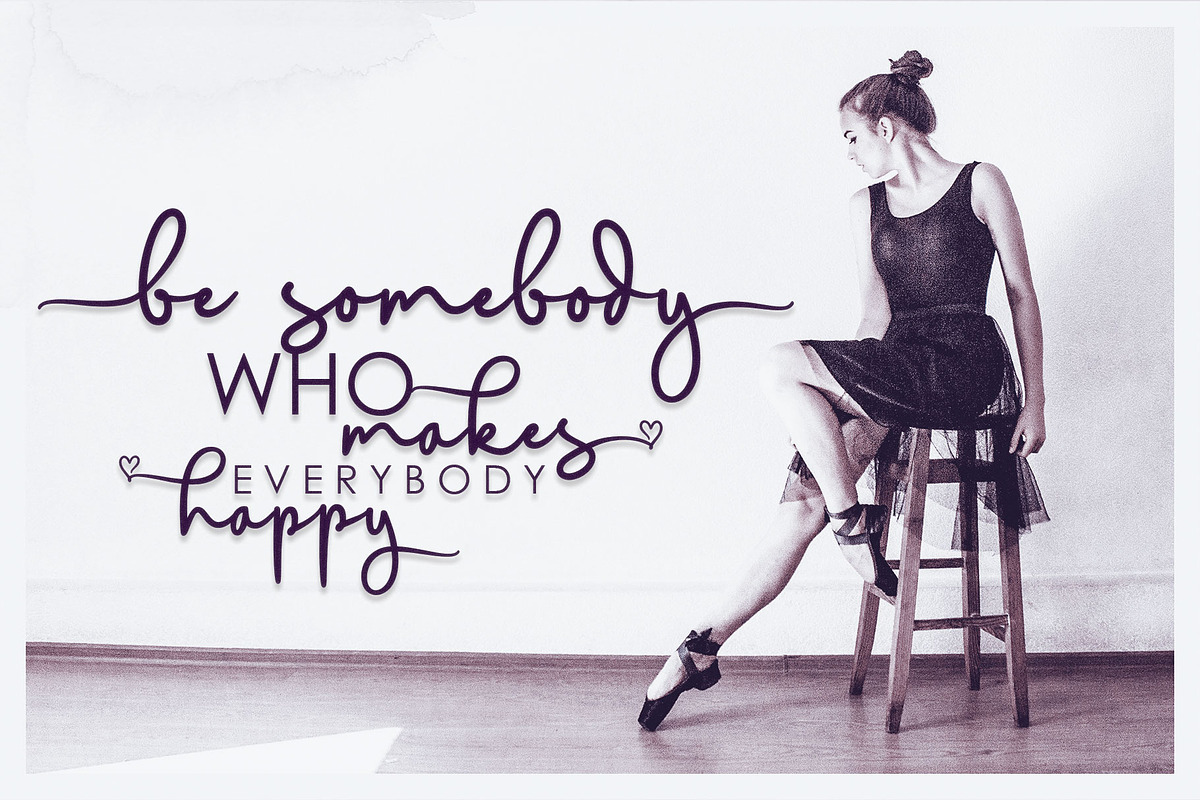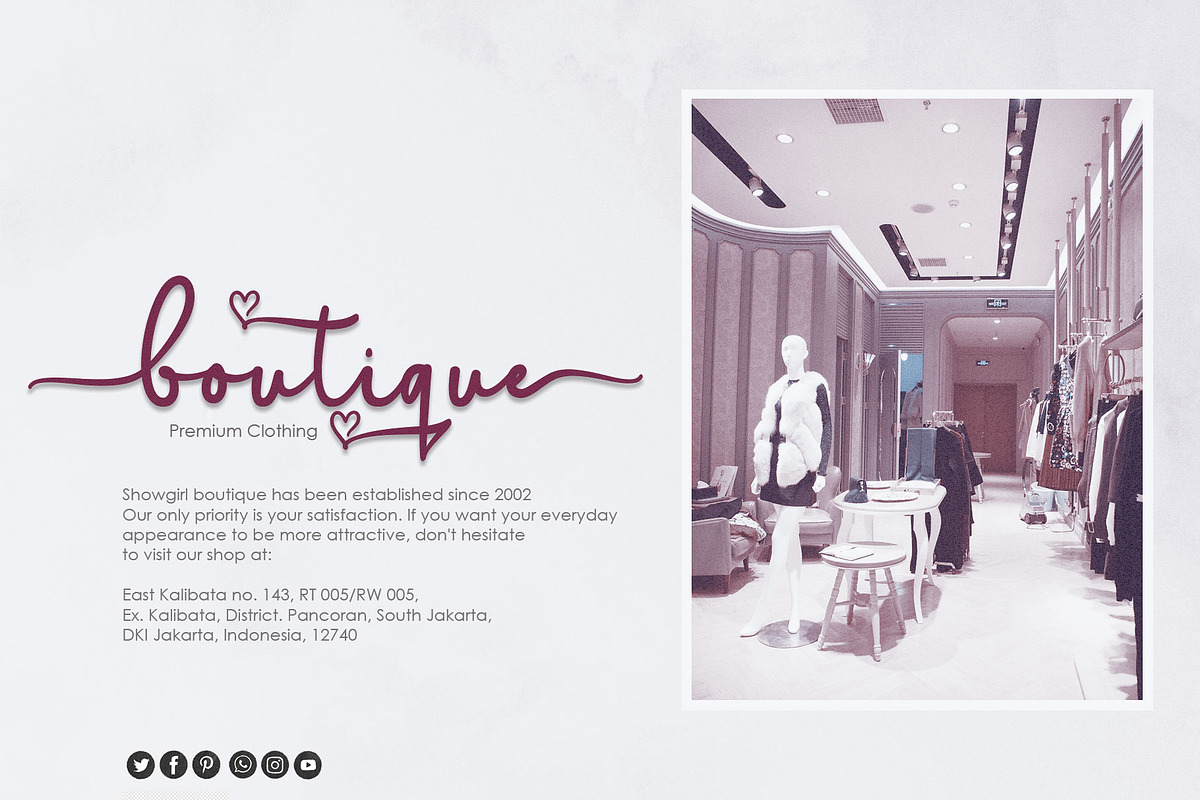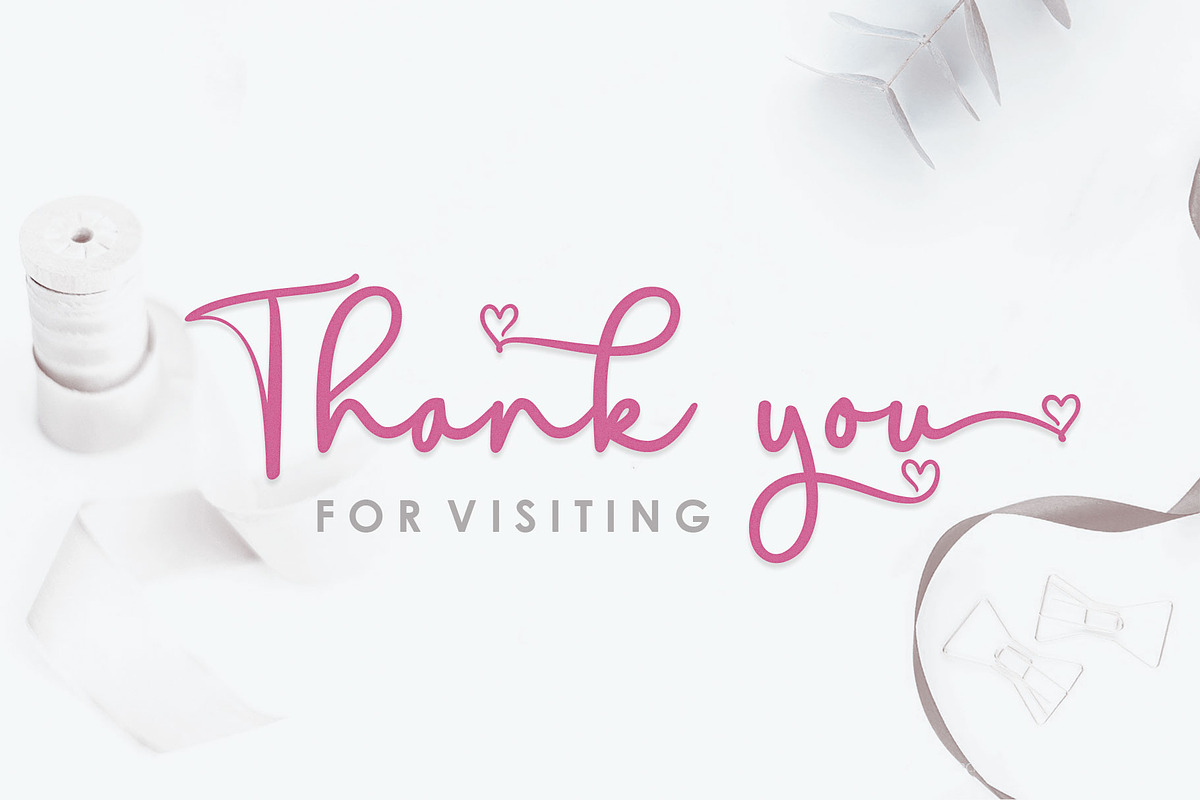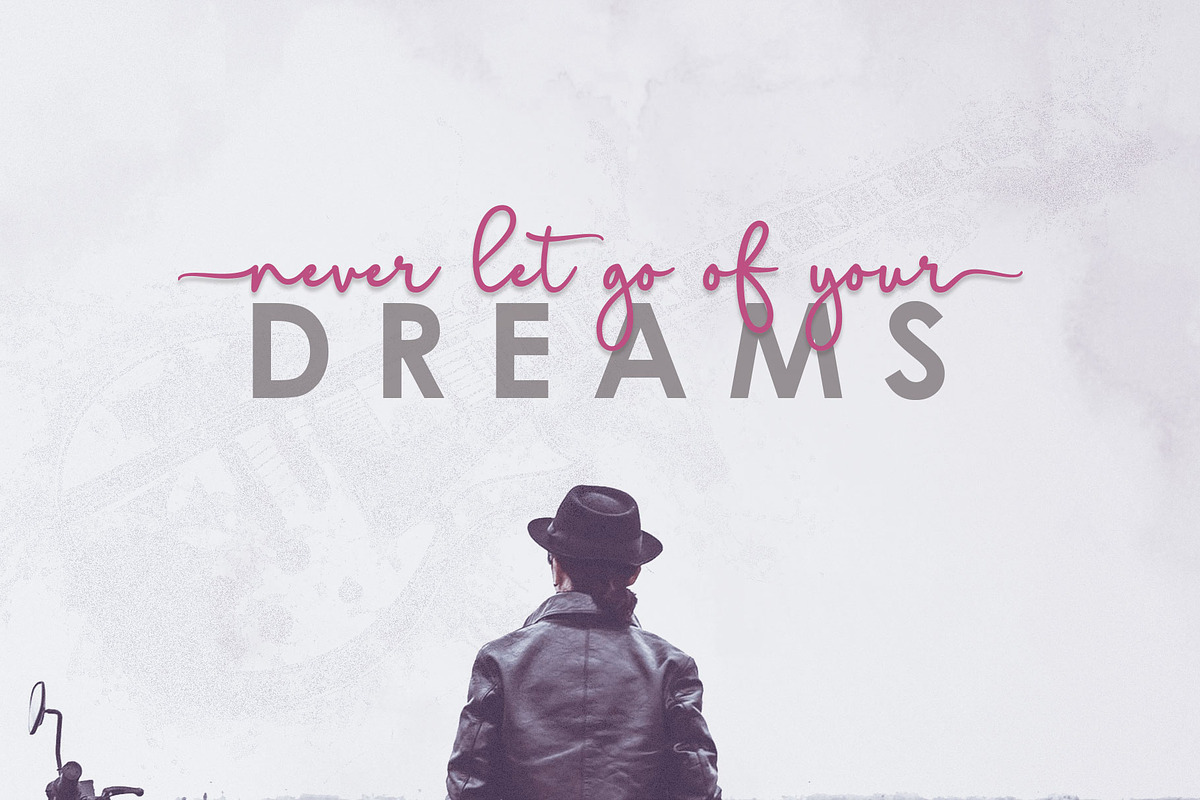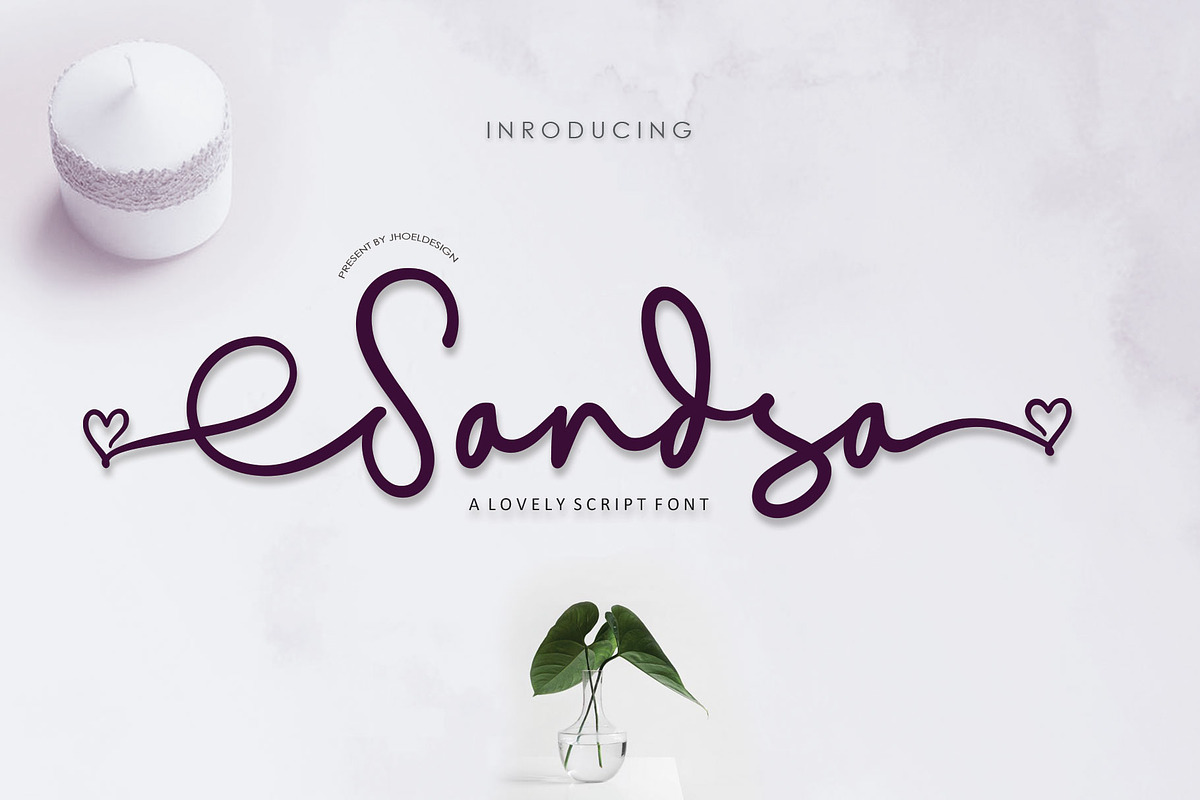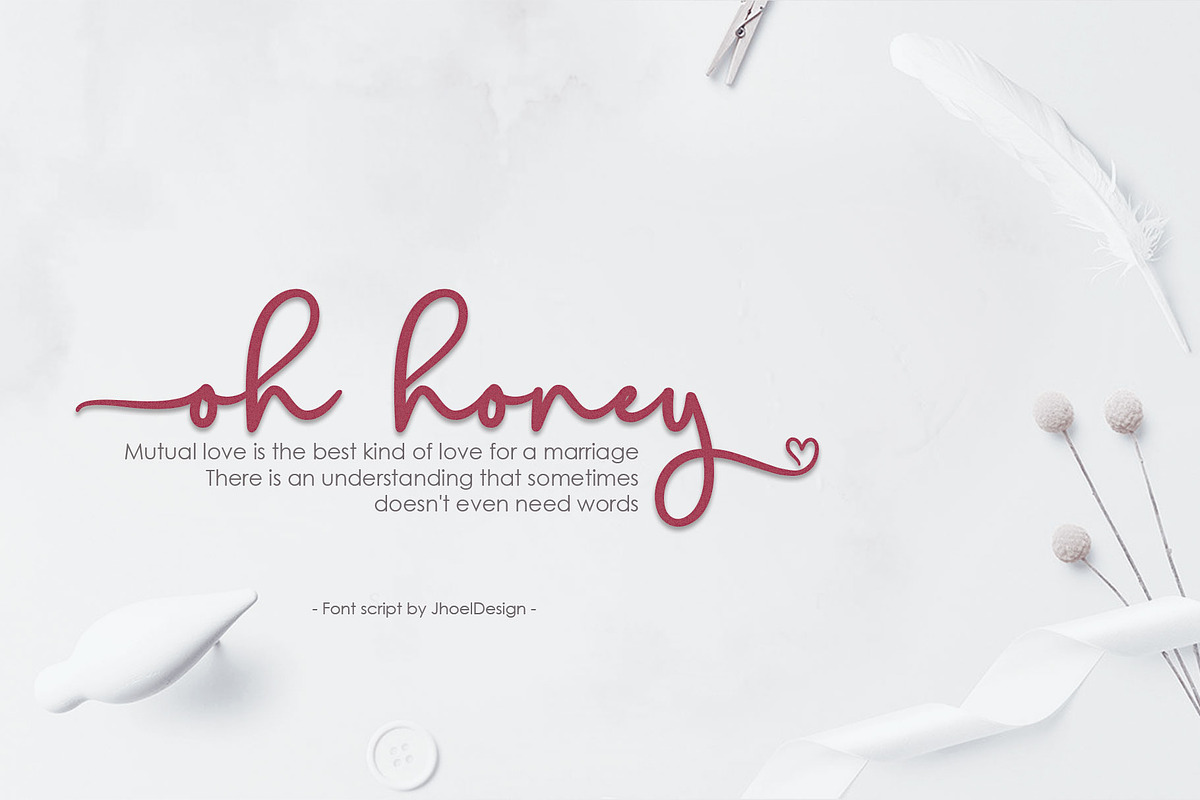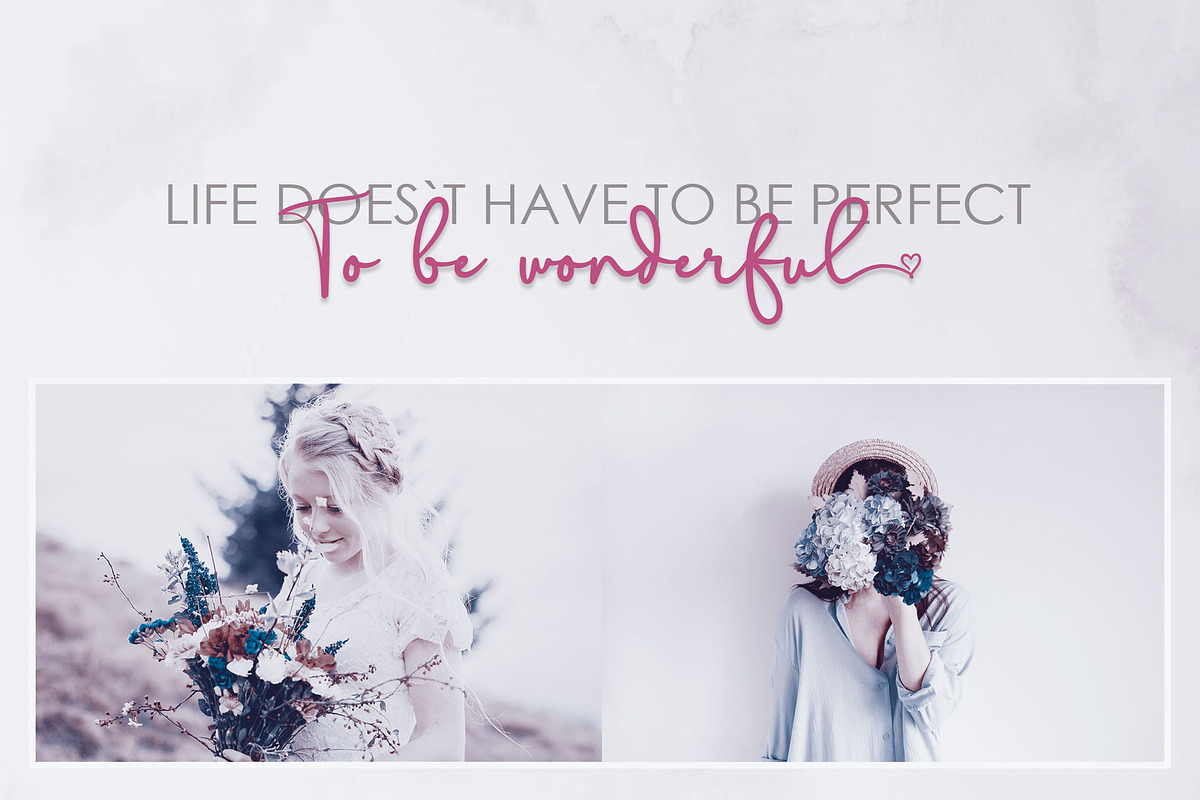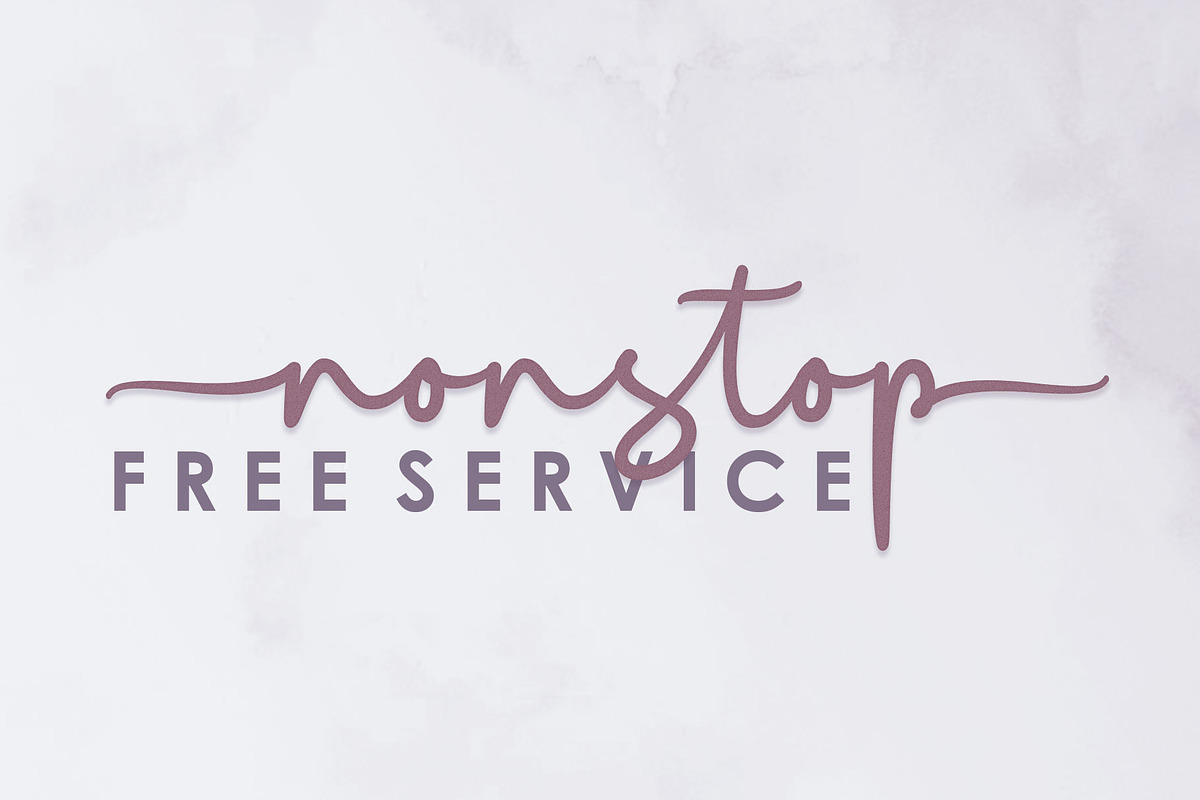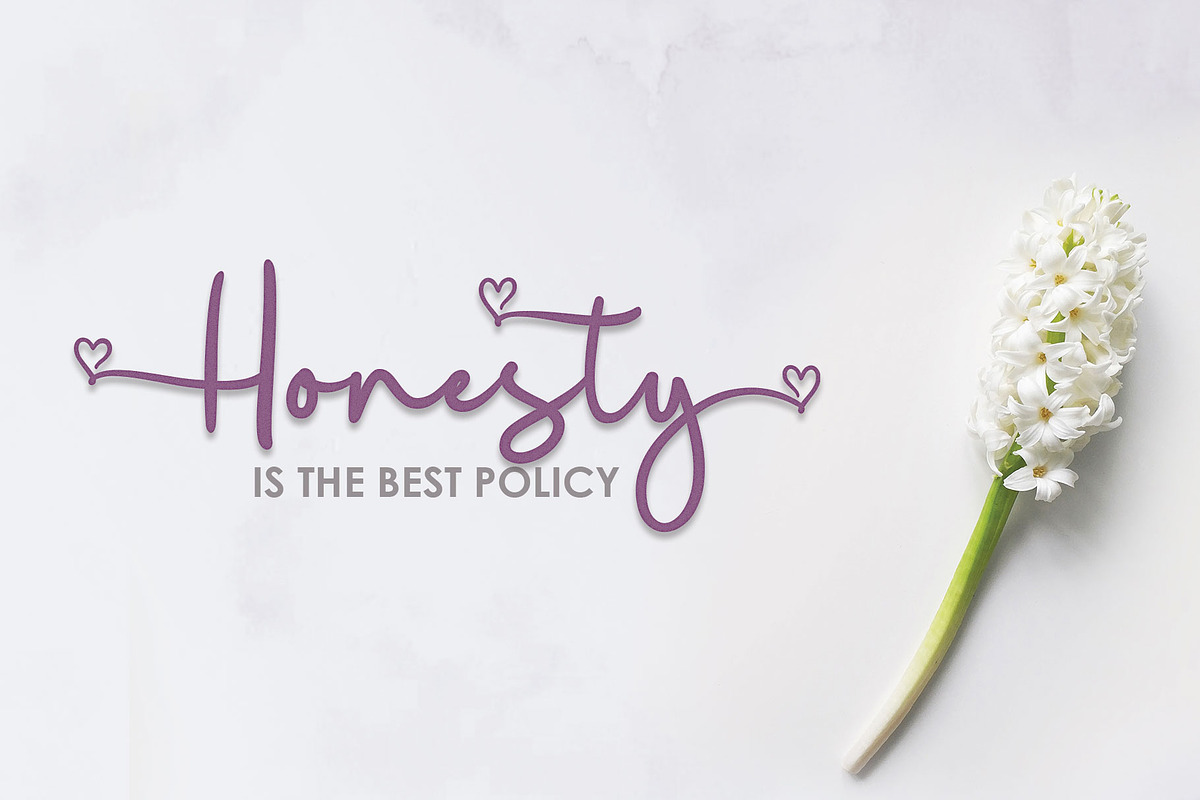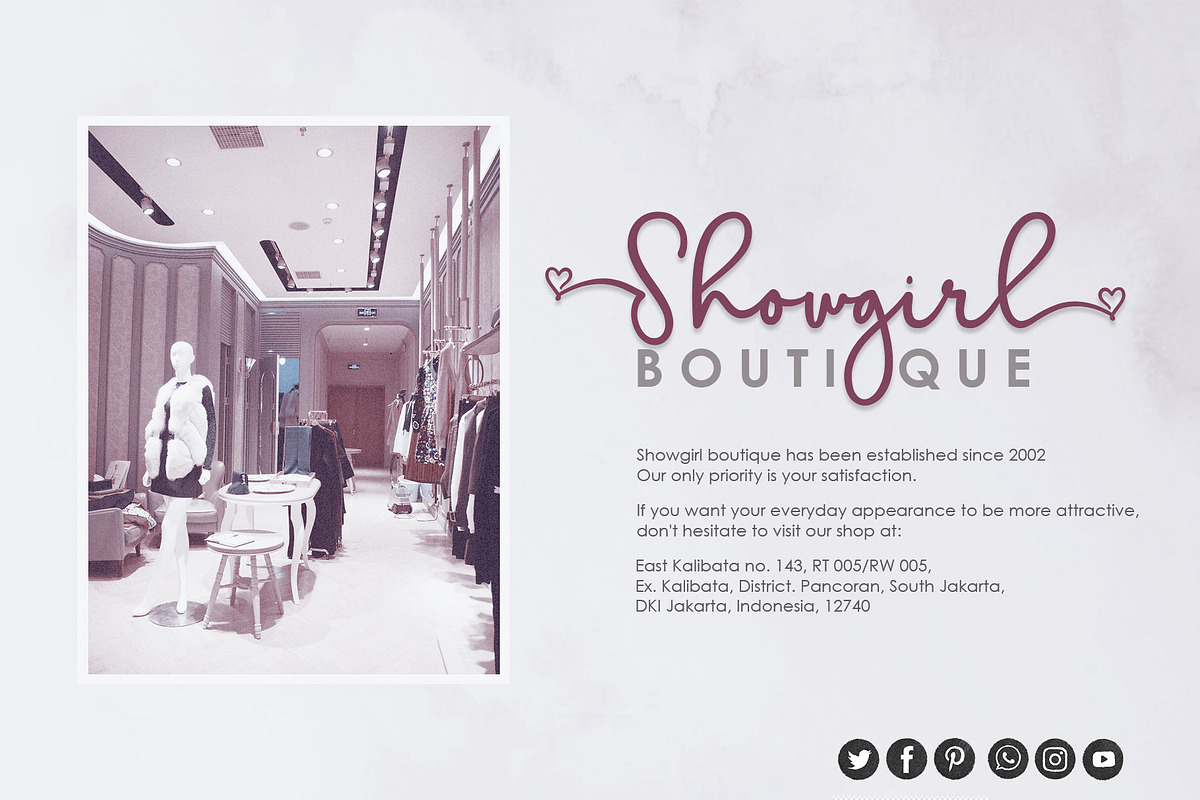
Sandsa Script
Introducing the lovely new Sandsa Script Font!
Sandsa Script : offers beautiful typography harmony for a variety of project design, including logo and branding, wedding design, social media posts, advertising, product design etc.
Sandsa Script : includes lowercase and uppercase letters, numbers, punctuation marks, standard ligatures, stylistic set and multiple language support.
This Font features 607 glyphs and this Font has given PUA unicode (specially coded fonts). so that all the alternate characters can easily be accessed in full by a craftsman or designer.